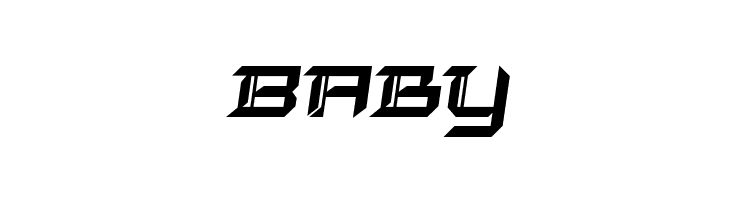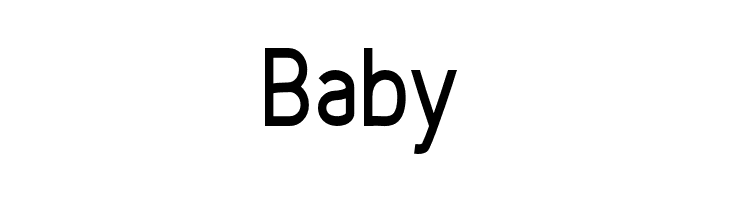
A bold, italicized font with a futuristic and dynamic design.
A bold, semi-italic font with a futuristic and geometric design.
A bold, modern sans-serif font with clean lines and balanced proportions.
A bold, modern sans-serif font with clean lines and uniform stroke weight.
A bold, modern sans-serif font with geometric precision and excellent readability.
A bold, modern sans-serif font with excellent readability and uniform design.
A sleek, bold, and italicized modern font with smooth strokes and dynamic slant.
A bold, monospaced font designed for clarity and readability, ideal for coding.
A bold, monospaced font ideal for coding with clear, evenly spaced characters.
A bold, monospaced font perfect for coding and technical documentation.